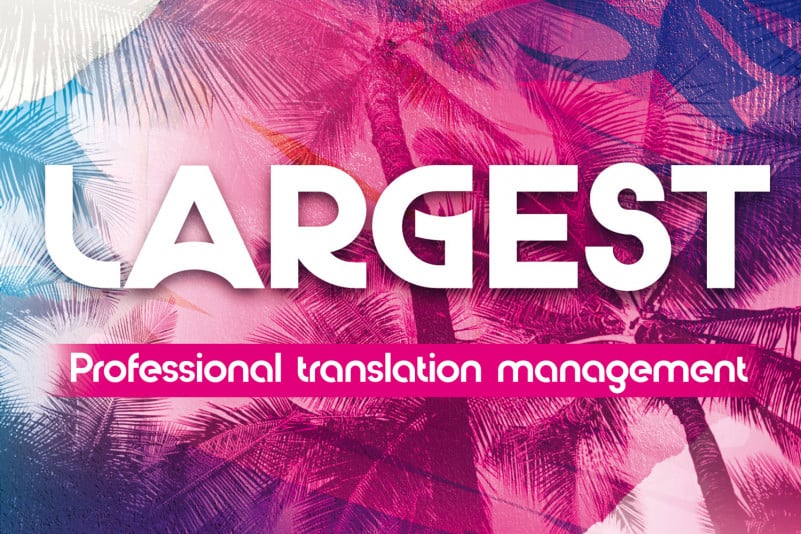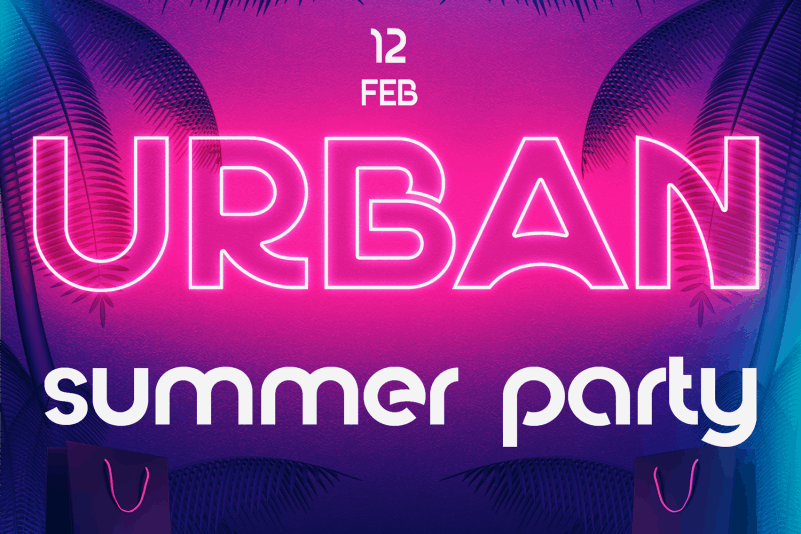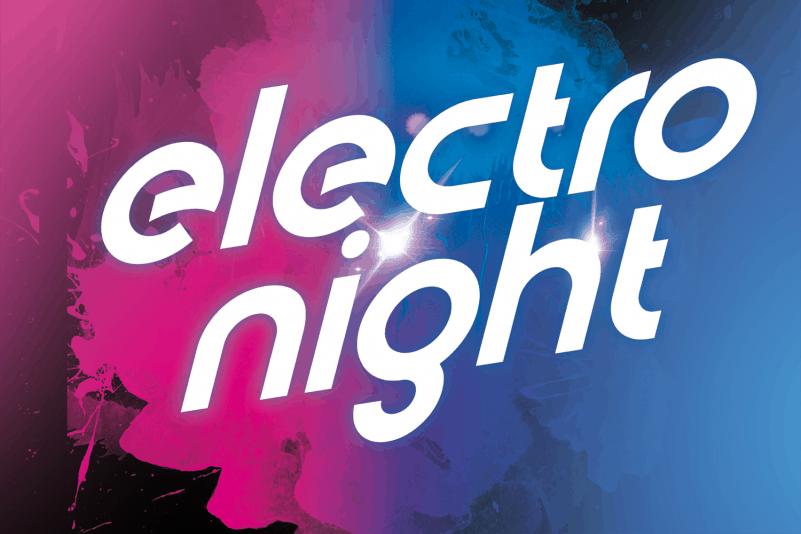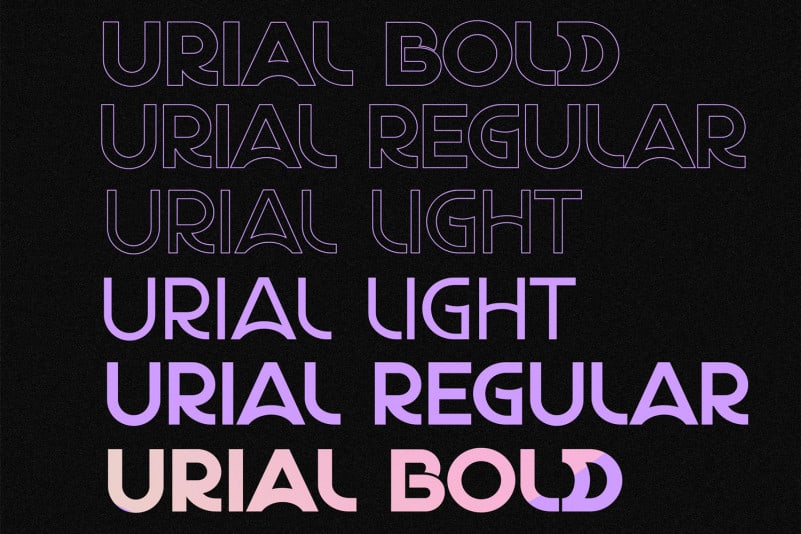
URIAL Sans Font Family is a modern type family of 9 typefaces. It’s will perfect for many project: fashion, invitations, music cover, game poster, cinema, book, magazines, logo, branding, photography, wedding invitations, quotes, blog header, poster, advertisements, t-shirt, etc.